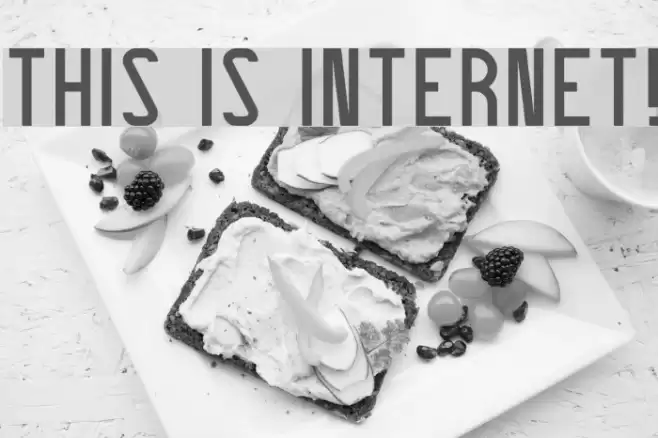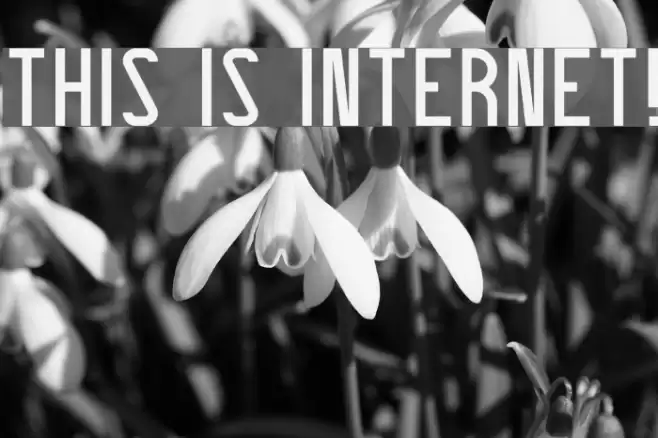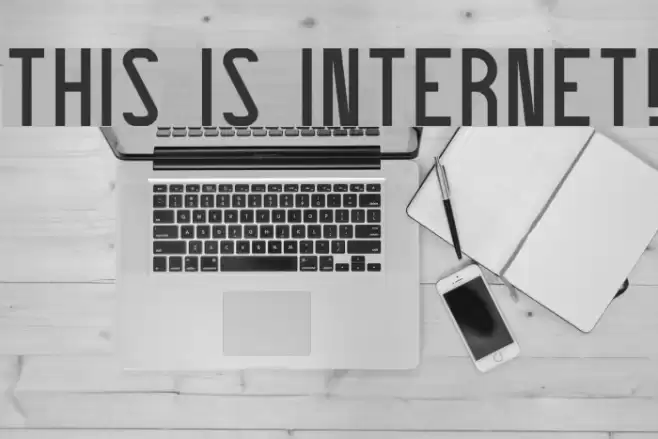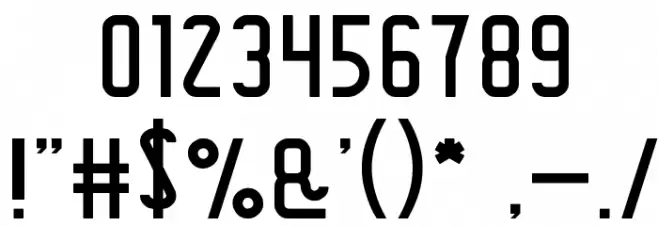
THIS IS INTERNET! Font
THIS IS INTERNET! Description
This typeface features a modern, geometric design with clean lines and a slightly condensed structure. The uppercase letters are tall and narrow, while the lowercase letters maintain a consistent height, providing a balanced appearance. The numerals are uniform in width, contributing to the font's orderly aesthetic. Special characters are distinct and well-integrated, enhancing the font's versatility. The overall style is sleek and contemporary, making it suitable for a variety of digital and print applications.
A modern, geometric typeface with clean lines and a slightly condensed structure from Uncategorized fonts.
- Proposed Projects: Ideal for digital interfaces, branding, advertising, and editorial design where a modern and clean look is desired.
- Use Case: Headlines, Logos, Digital interfaces